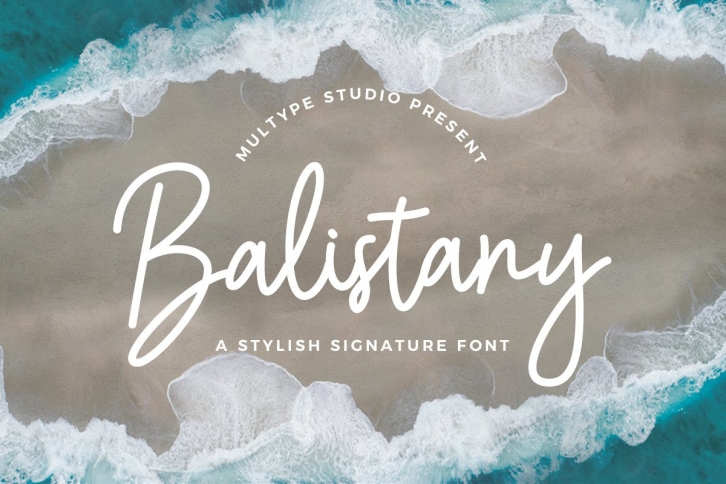
Balistany Signature is a beautiful font that was designed by Multype Studio. It's a great choice for designers and creatives who need such a font. It was released on April 26, 2022 and the file size is 13.44 MB. Balistany Signature may give a more youthful, expressive and casual look to your project. It is a very beautiful, refined, elegant, and high-quality font.